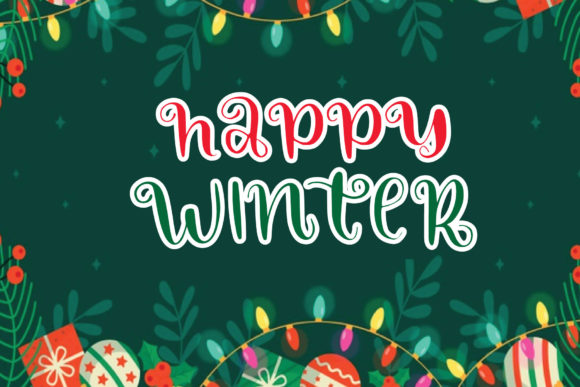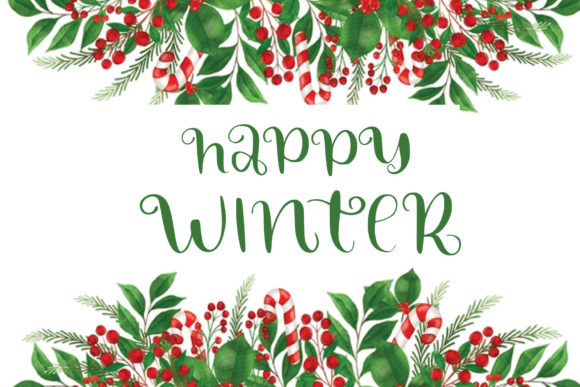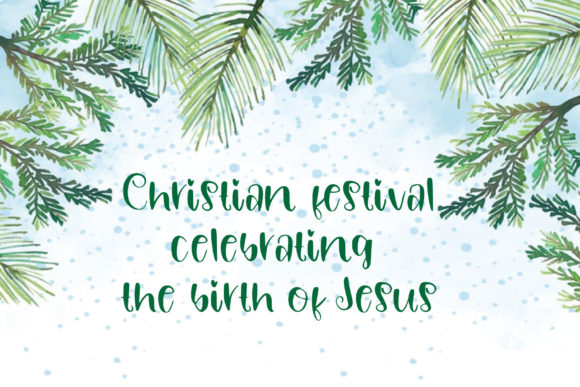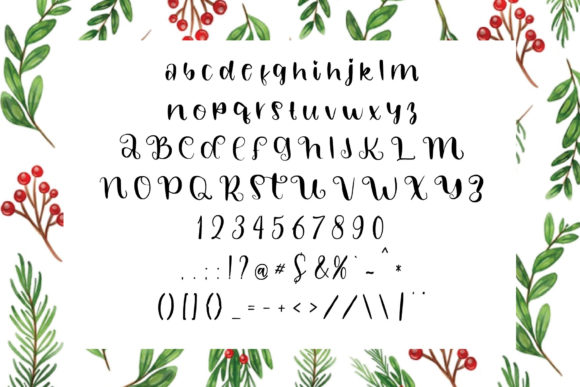
About Happy Winter Font
Happy Winter is a sweet, fresh, rich, and elegant handwritten font. It is ideal for holiday-themed greeting cards and for any crafting project that requires a romantic touch.